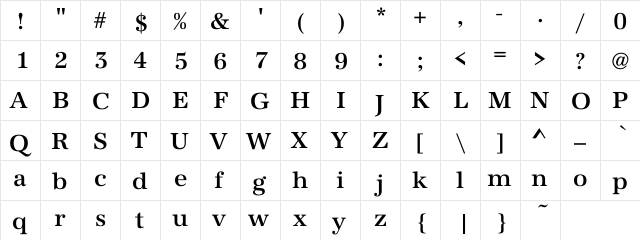
Burgundian Medium Regular
Design Context for Burgundian Medium Typeface
Burgundian Medium offers clean, dependable letterforms without strong stylistic allegiance, making it a practical choice for designers who need flexibility.
Pro Tip: Use Burgundian Medium in both headline and body roles to test its range before committing to a single application.